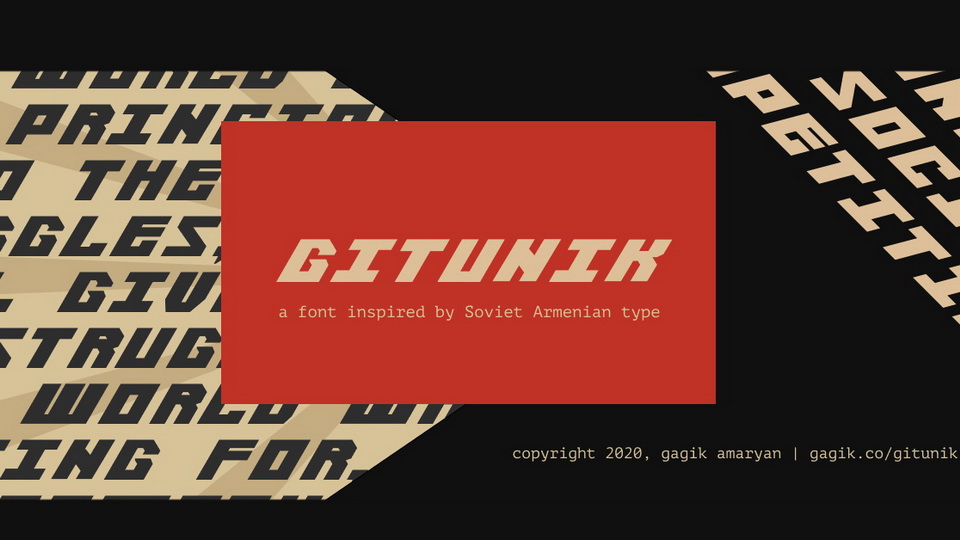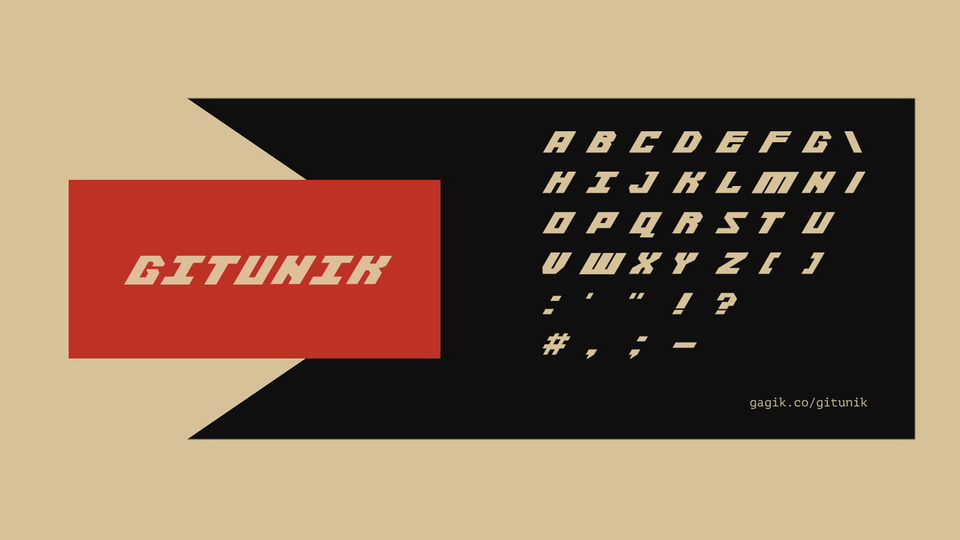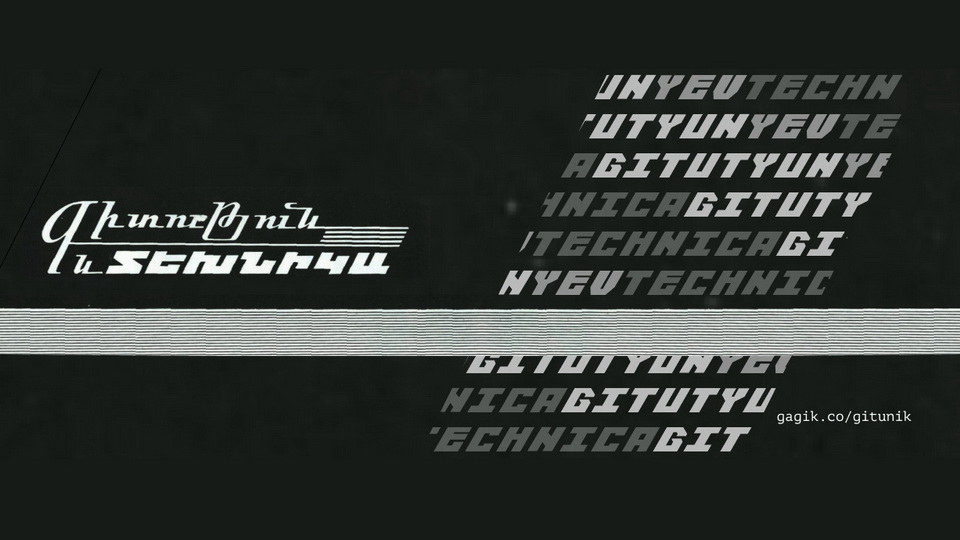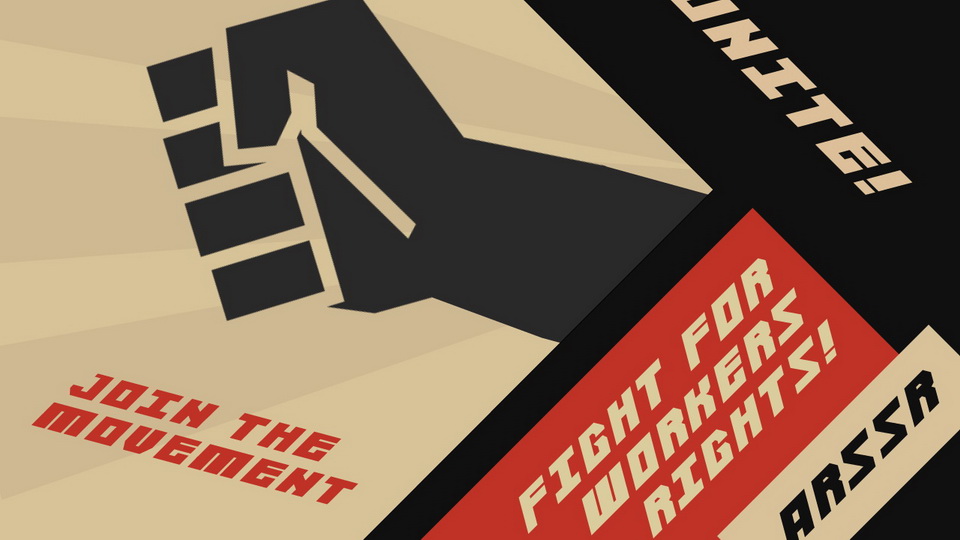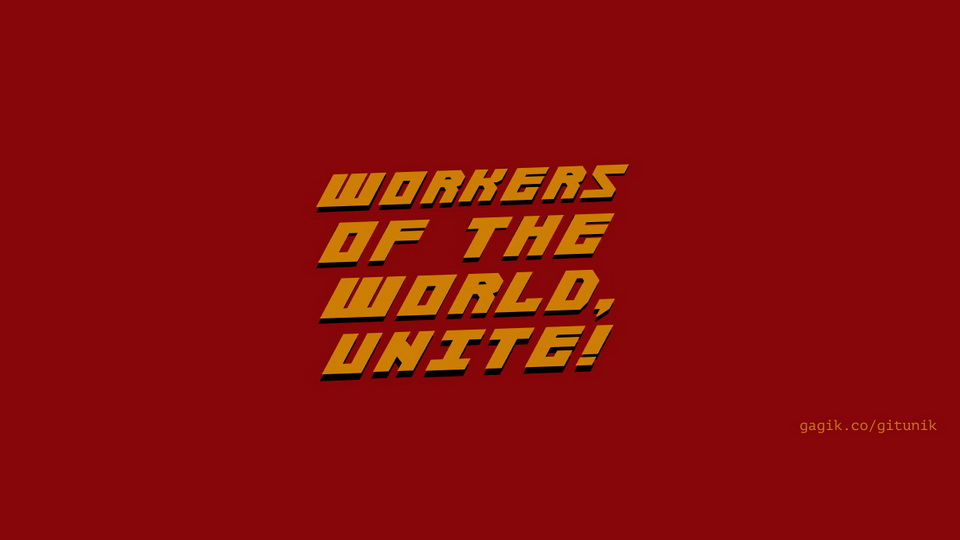
Gitunik is a font taking inspired by the Տեխնիկա (Technica) typeface by Henrik Mnatsakanyan, one of the pioneers of Soviet Armenian typography. It is heavily influenced by Russian Constructivism and features a bold and blocky design.
Gitunik is the Armenian word for “a little scientist”, a reference to the Gitutiun and Technica (“Science & Technology”) magazine the logo of which featured Mnatsakanyan’s work.
It was developed with Soviet Modernist art in mind while also making sure the blocky design are accessible for both digital and print projects. The font pairs best with minimalistic geometry elements as well as monospace and sans-slab fonts.